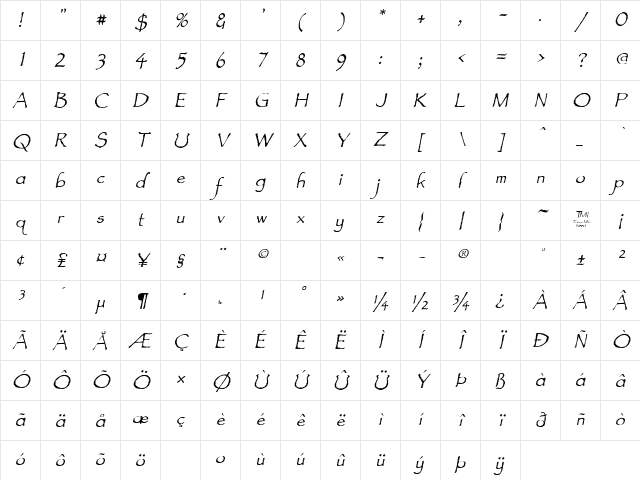
Complete Feldicouth Norm Regular glyph index. Displaying only characters natively supported by Feldicouth Norm Regular font.
Feldicouth Norm is a composed and adaptable typeface that performs quietly and consistently across a wide range of design contexts.